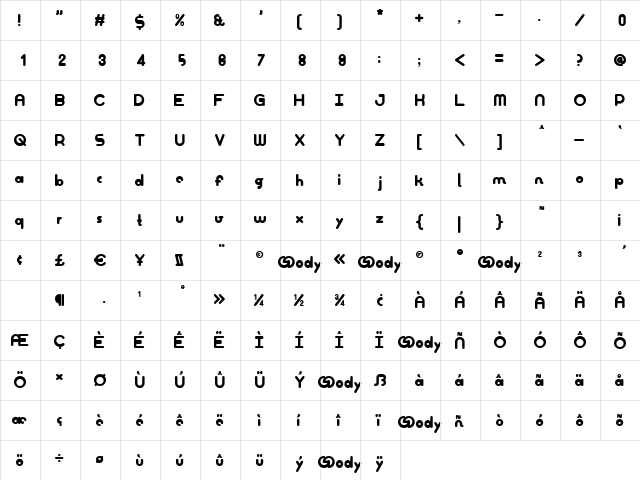
GOody Regular
Design Context for GOody Typeface
GOody is a composed and adaptable typeface that performs quietly and consistently across a wide range of design contexts.
Pro Tip: Pair GOody with a font of contrasting weight or personality to build a more expressive typographic hierarchy.